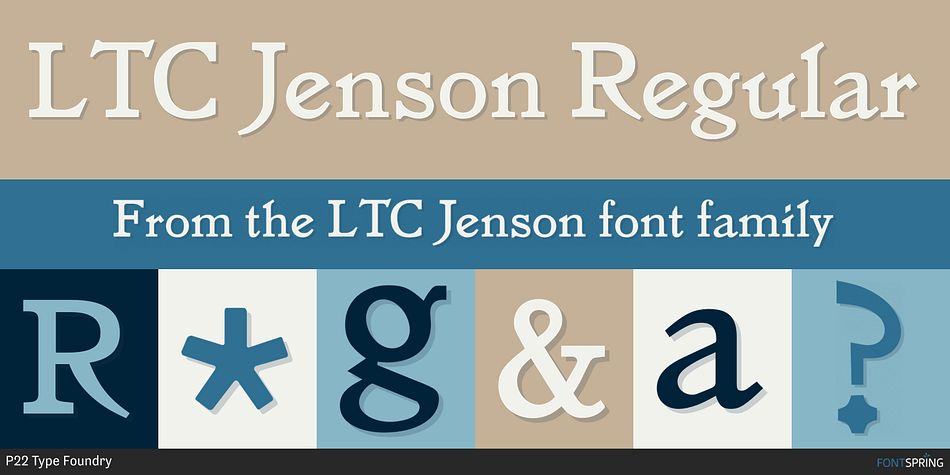
LTC Jenson Regular
Designed by Joseph W. Phinney and Colin Kahn, LTC Jenson is a serif font family. This typeface has five styles and was published by P22 Type Foundry.
LTC Jenson was designed by J. W. Phinney of the Dickinson Type Foundry in 1893. Jenson is based on the ‘Golden Type’ designed by William Morris in 1890 for his private press editions under the imprint of the Kelmscott Press. The original digital Lanston version of this face included a companion Oblique. This remastered set instead features a true italic based on the 1893 ATF italic version as well as a newly digitized Jenson Heavyface based on Phinney’s design of 1899. Jenson Italic Pro features alternate lowercase forms.
Foundry P22 Type Foundry
Designers Joseph W. Phinney, Colin Kahn